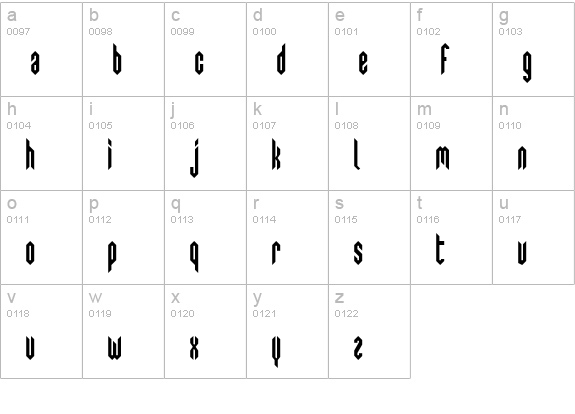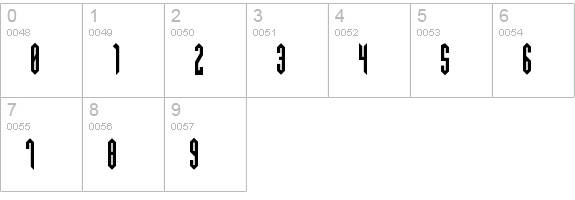
SwedieCruel Font Details
SwedieCruel font is a striking and modern typeface that exudes elegance and sophistication. Its sleek lines and unique curves make it perfect for a wide range of design projects, from branding to editorial layouts. With its bold and distinctive appearance, SwedieCruel font is sure to make a statement and capture the attention of viewers. What sets SwedieCruel font apart is not only its stunning design, but also the fact that it is available for free download at FontsMarket.com. This means that you can easily incorporate this eye-catching font into your projects without breaking the bank. Whether you're working on a personal project or a professional design, SwedieCruel font is a versatile and stylish option that is sure to impress. Download it today and elevate your designs with this exceptional typeface.